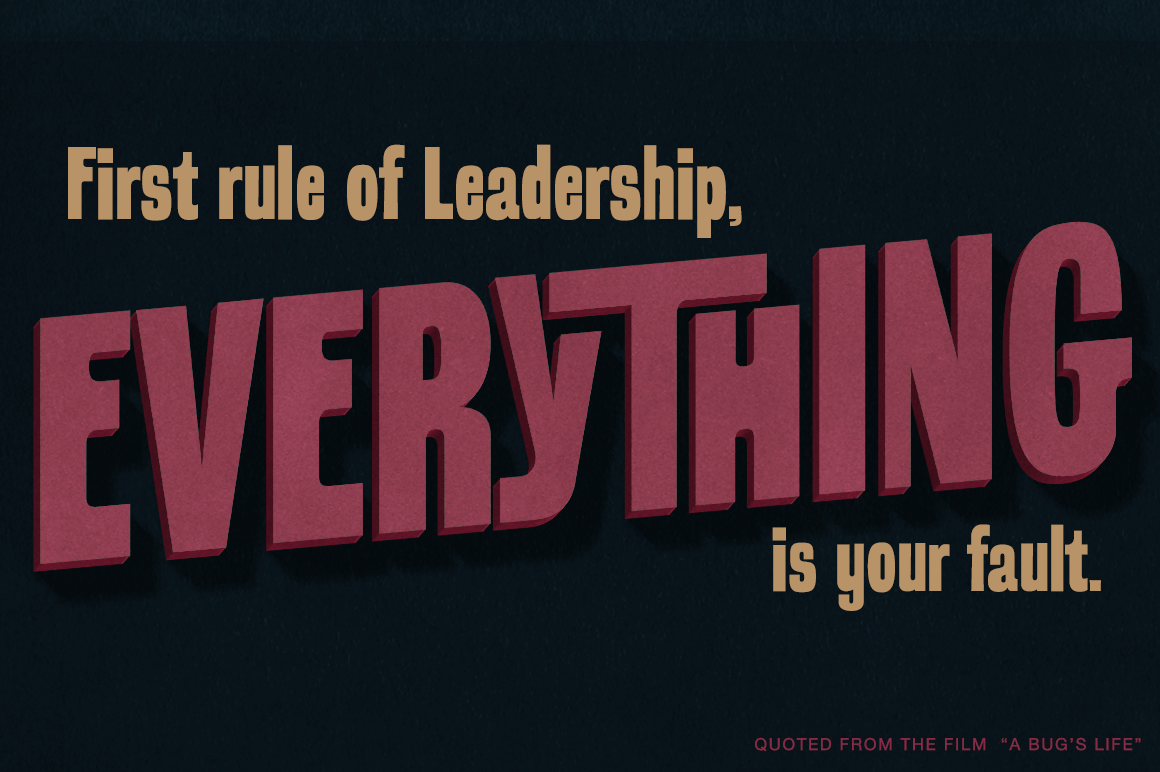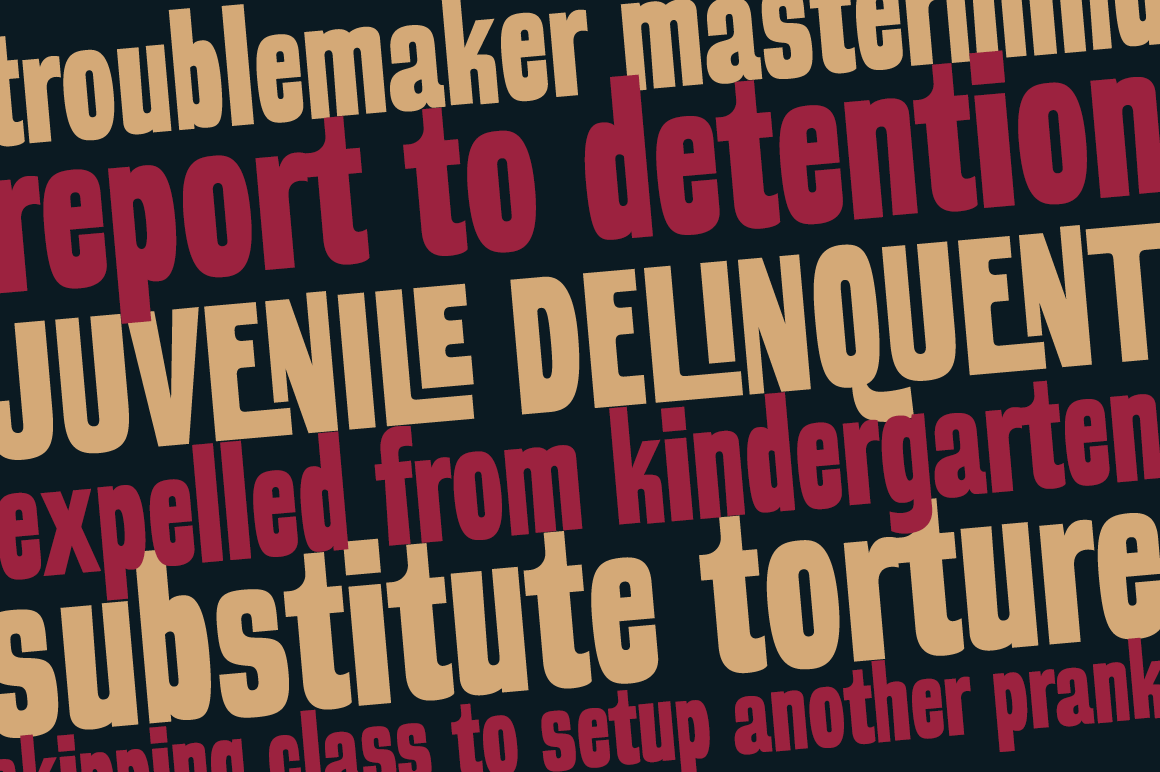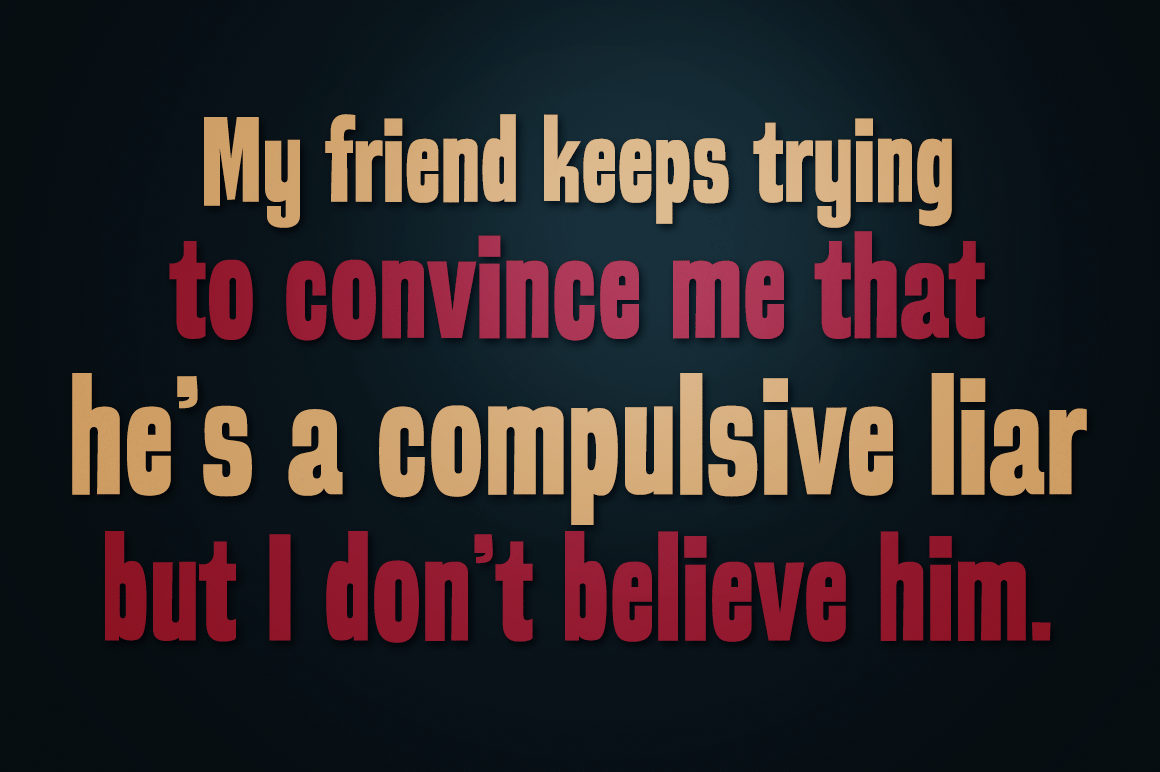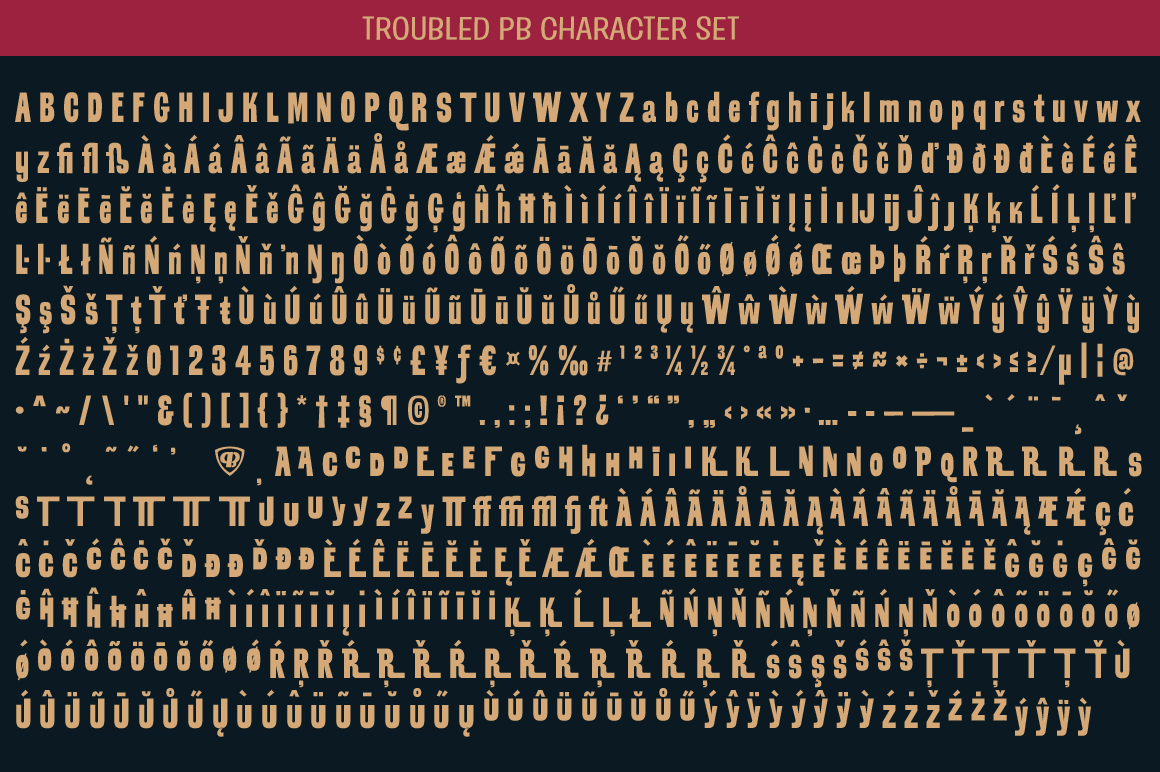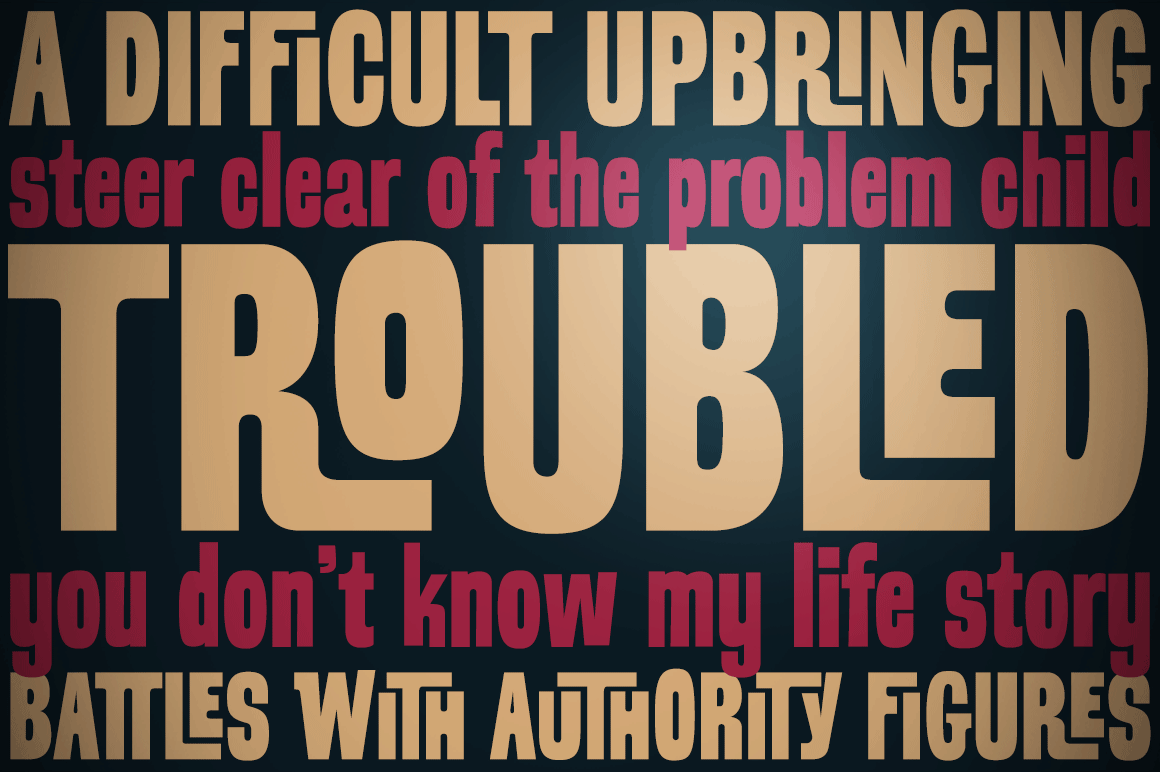
Troubled PB
Loaded with various auto-ligatures (primarily for ALL-CAPS typesettings), Troubled has all of the rebellious custom lettered attitude of a vintage pulp paperback. Troubled PB began as a digitization of a film typeface known as Toronado by LetterGraphics,…